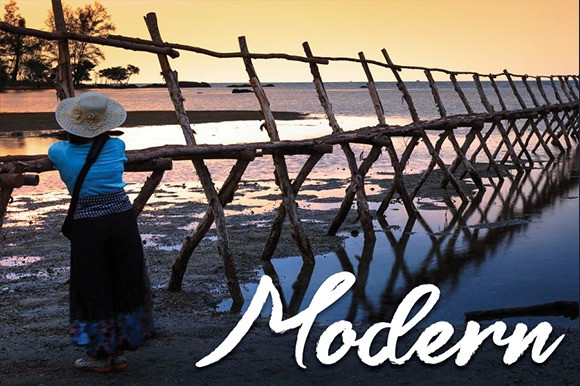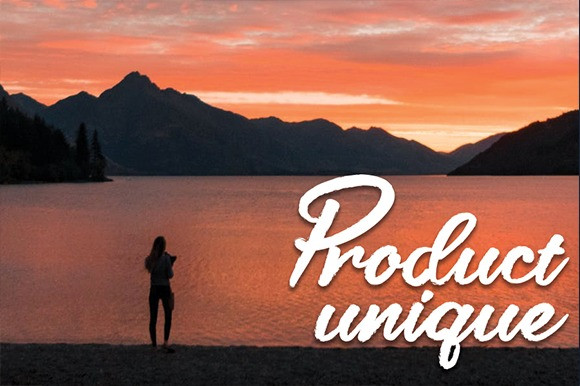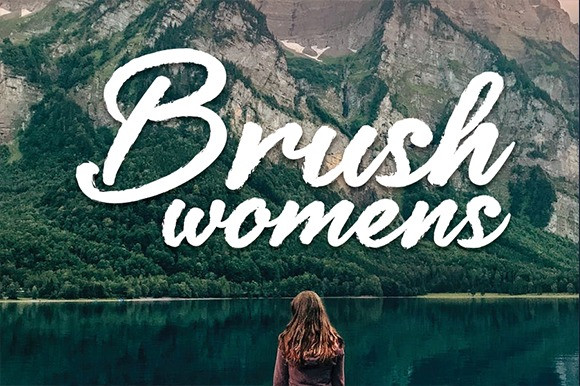
Beastmachine Typeface
Hi all…!! again presented a hand brush products. The style of handwriting and irregular but still elegant, and you will enjoy to use this font style.
Beastmachine has standard ligatures included – to give the font a more natural, scripted look when you have any double letters in your design. It also has multilingual support with accented characters for international users.
Beastmachine is perfect for branding projects, homeware designs, product packaging – or simply as a stylish text overlay to any background image.